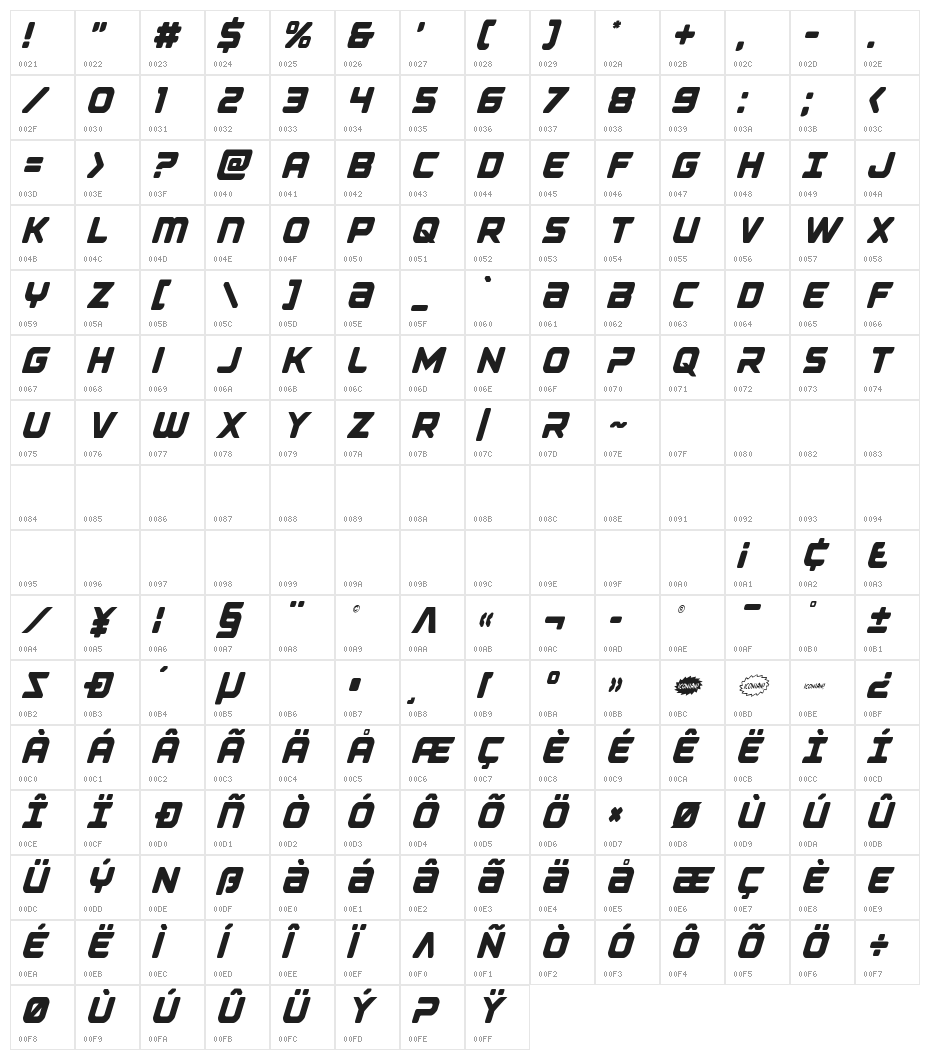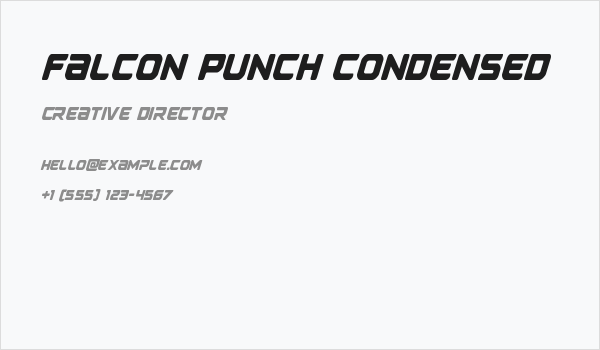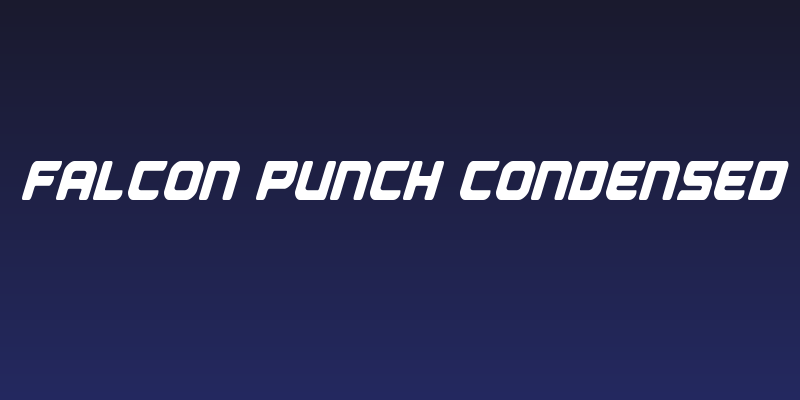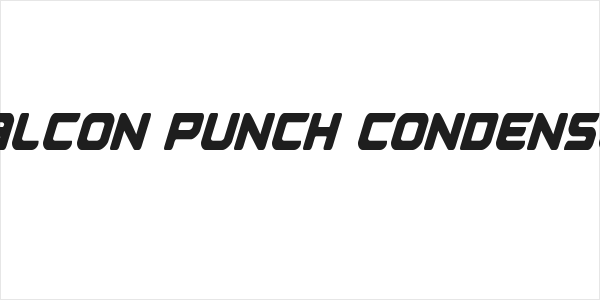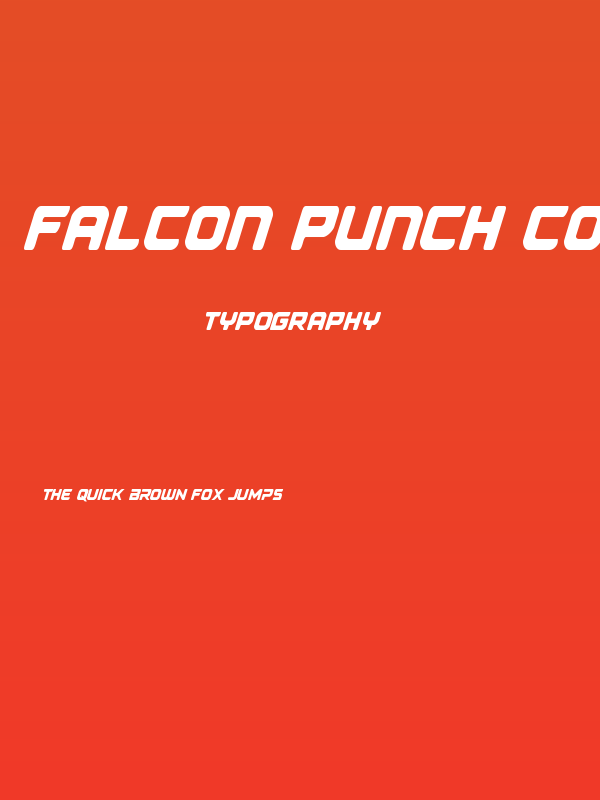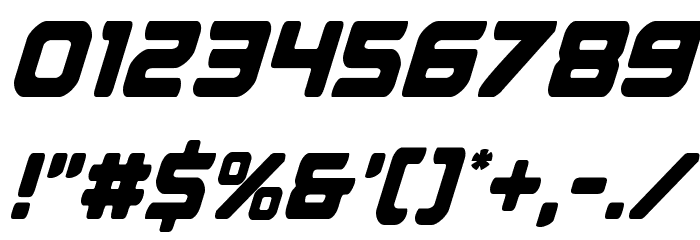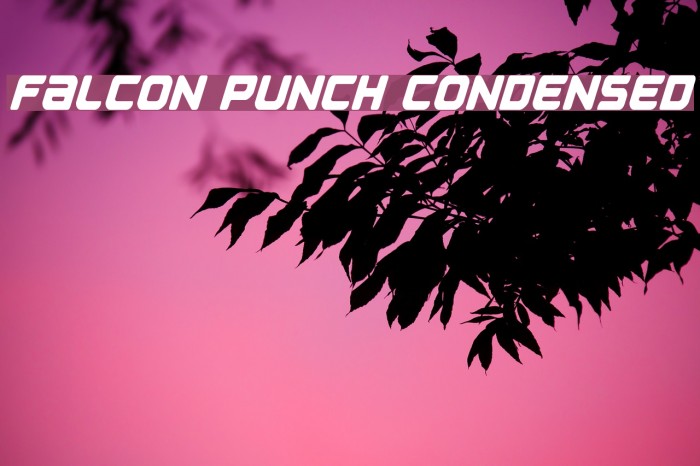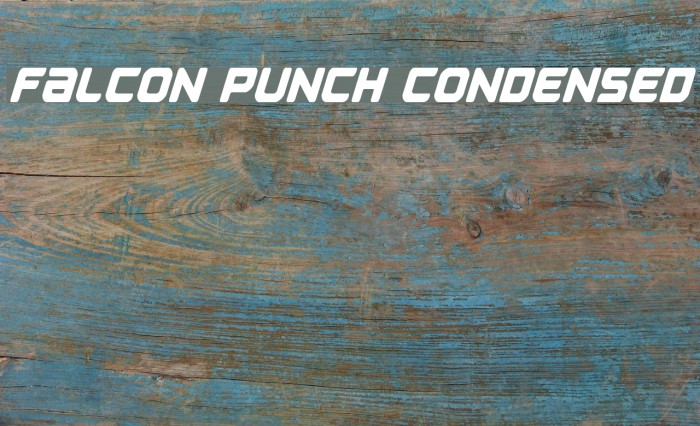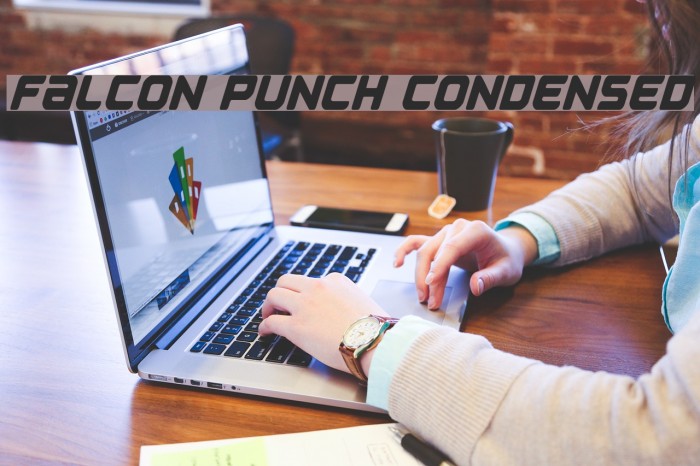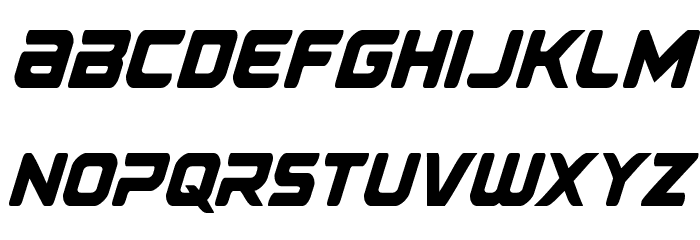
Falcon Punch Condensed Font
Falcon Punch Condensed Description
This font features a bold, modern design with a condensed structure, making it ideal for impactful headlines and attention-grabbing displays. The characters are slightly slanted, adding a dynamic and energetic feel. The strokes are thick and consistent, providing a strong visual presence. The overall style is sleek and futuristic, suitable for projects that require a contemporary and assertive look. The spacing between characters is tight, enhancing the compact appearance of the text.
| Proposed Projects | Ideal for sports branding, tech-related designs, posters, and advertising campaigns. |